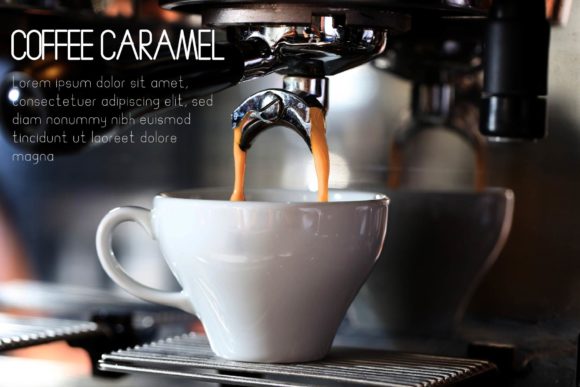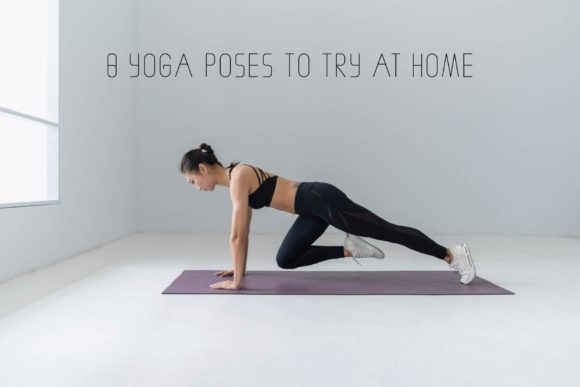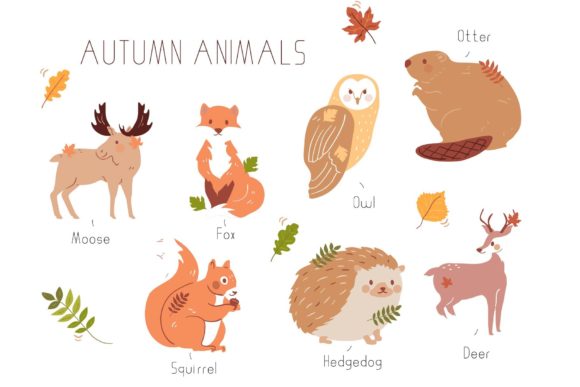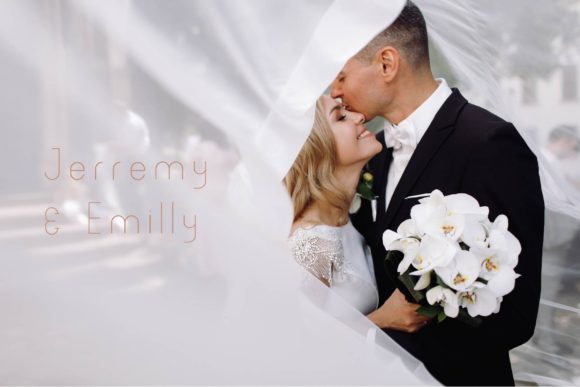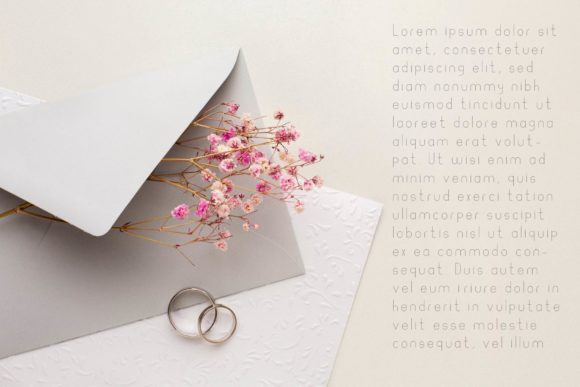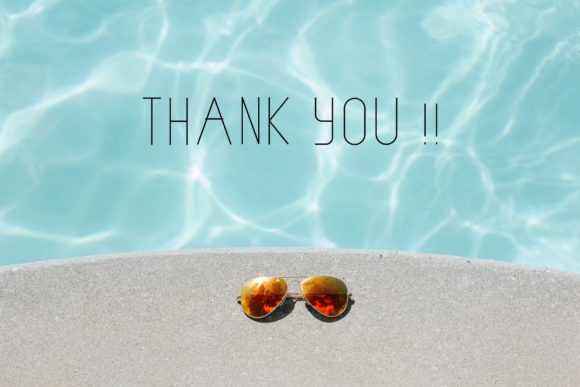
The Perfect Match for Your Creative Projects
You’re staring at a blank canvas, and the ideas are flowing. Your mind is racing with possibilities, but you need the right tool to bring them to life. That’s where the Generalist Font comes in – a versatile and sleek sans serif font that’s about to become your go-to companion for all your creative endeavors.
Generalist Font is designed to be a jack-of-all-trades, effortlessly blending into a wide range of projects. Its geometric and thin lettering makes it perfect for modern designs, from sleek tech interfaces to trendy restaurant menus. Whether you’re a seasoned designer or just starting out, this font is a valuable addition to your toolkit, offering endless possibilities for creative expression.
Generalist Font Key Features
- Font Size: Generalist Font comes in three different font sizes: Regular (400 units), Medium (500 units), and Bold (700 units), catering to various design needs.
- Resolution: Generalist Font is designed to work well at high resolutions, ensuring crisp and clear typography on high-definition displays.
- Unique Characteristics: Generalist Font boasts a clean, modern design with a subtle flair, making it suitable for a wide range of applications, from corporate branding to editorial content.
- Character Set: Generalist Font includes a comprehensive character set, supporting over 100 languages, including Latin, Cyrillic, and Greek scripts.
Designer Review: Generalist Font
Overall, I think Generalist Font is a solid choice for many projects. Here are some things that I think work well: ✨
- Generalist Font is highly legible, even at smaller font sizes. This makes it a great choice for body text and other content that needs to be easily readable.
- The font has a friendly, approachable feel that works well for digital interfaces and printed materials alike.
- It’s a great all-around font that can be used in a variety of contexts, from web design to print design.
That being said, there are a few limitations to consider: ⚠️
- While Generalist Font is highly legible, it’s not particularly unique or distinctive. If you’re looking for a font that will make a statement, you might want to look elsewhere.
- The font’s friendly feel can sometimes come across as overly casual or unprofessional, depending on the context.
Overall, I think Generalist Font is a safe, reliable choice for many design projects. While it may not be the most exciting or innovative font out there, it gets the job done and is easy to work with.
Getting the Most Out of Generalist Font
Generalist Font is a versatile font that works well for a variety of applications. To get the most out of it, use it for body text, headings, and titles. It’s also a good choice for creating a consistent look across multiple documents or designs.
Generalist Font is commonly used for:
– Body text in reports, articles, and websites
– Headings and titles in presentations, documents, and designs
– Branding and marketing materials
– Creating a consistent look across multiple documents or designs
Alternatives to Generalist Font
Inter Font is a highly legible sans-serif font designed for digital interfaces. It’s suitable for use in applications, websites, and digital products where readability is crucial. Inter Font is designed to be highly readable at small font sizes and in low-resolution environments. It’s a good alternative to Generalist Font when you need a more modern and minimalist look.
Comparison to Generalist Font: Inter Font is more modern and minimalist, while Generalist Font is more classic and versatile.
Merriweather Font is a classic serif font designed for print and digital use. It’s suitable for use in applications, websites, and publications where a traditional and elegant look is desired. Merriweather Font is designed to be highly readable in both print and digital formats. It’s a good alternative to Generalist Font when you need a more traditional and elegant look.